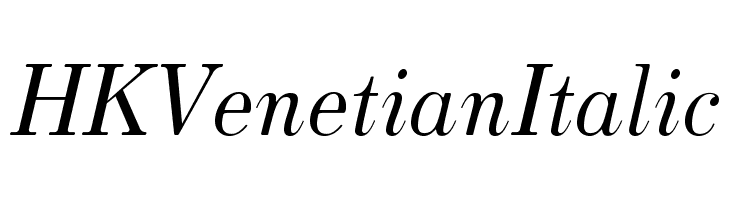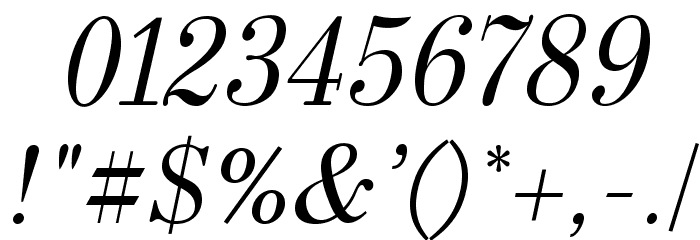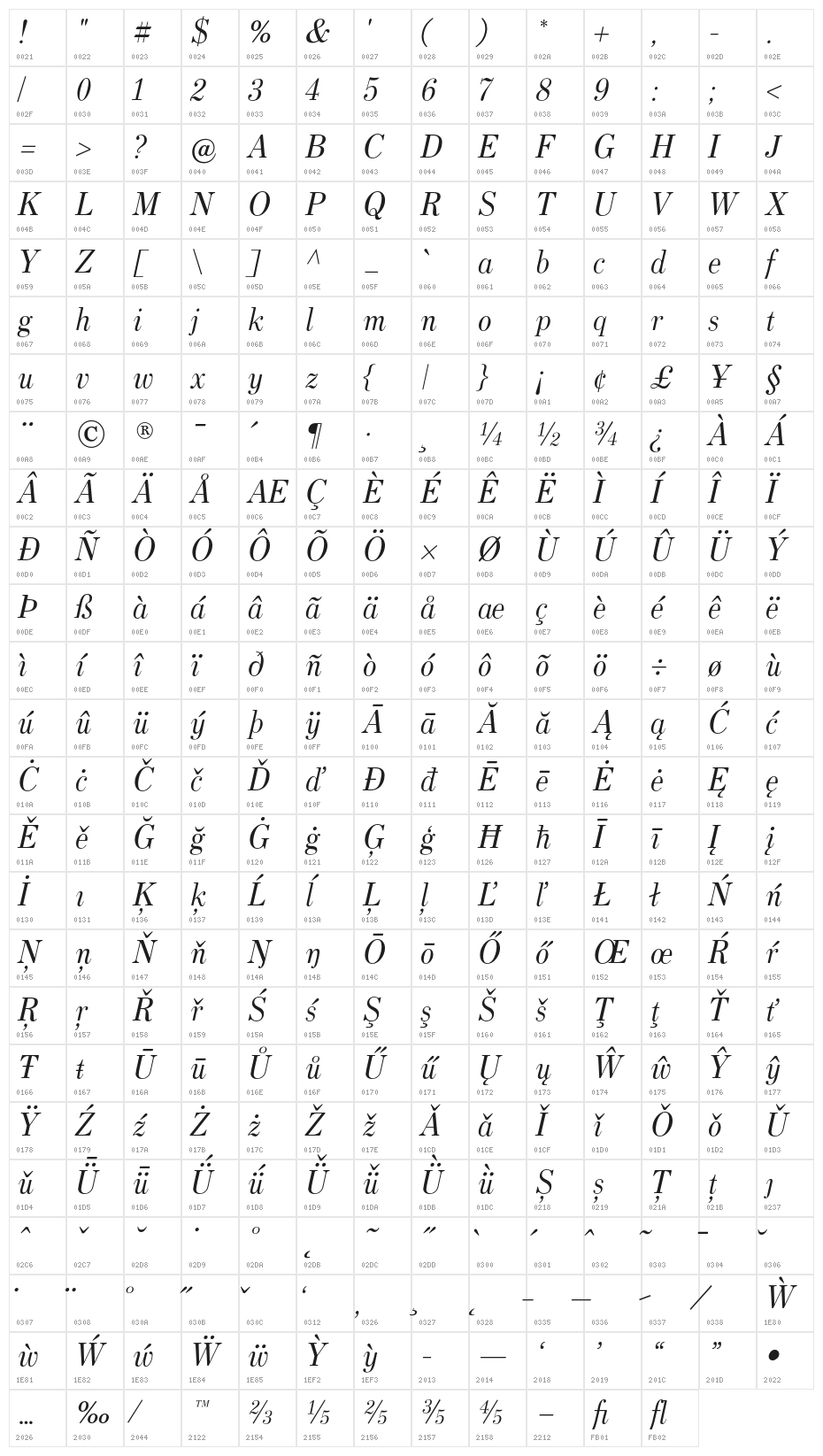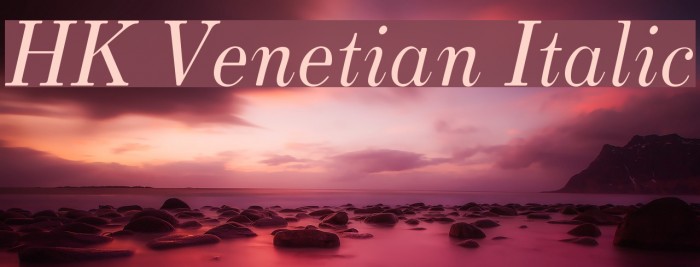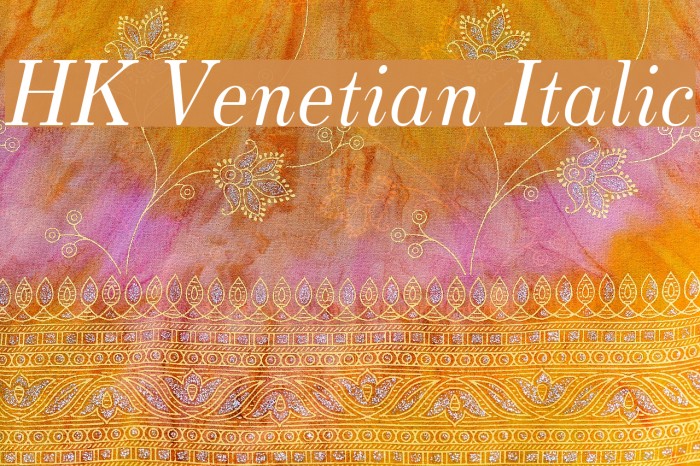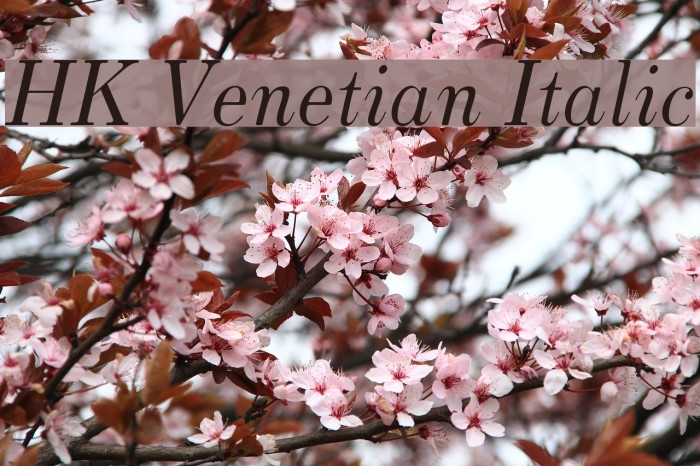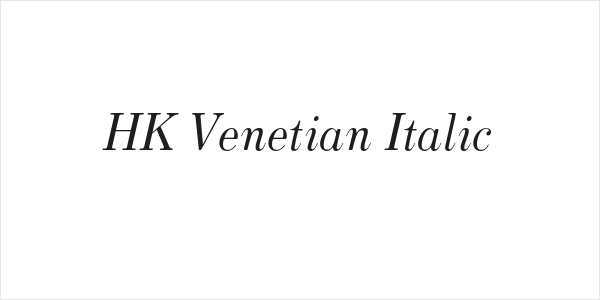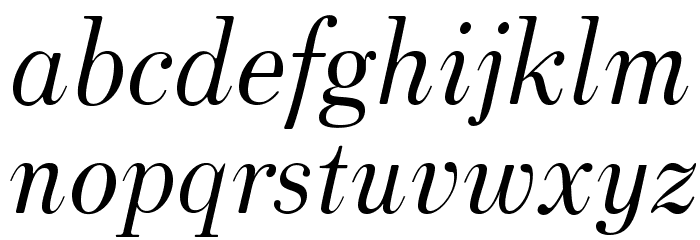
HK Venetian Italic Font
HK Venetian Italic Description
This elegant typeface features a classic italic style with a refined and sophisticated appearance. The letters are gracefully slanted, providing a sense of movement and fluidity. The strokes are moderately contrasted, with thin lines and slightly thicker downstrokes, adding to its readability and charm. The serifs are delicately crafted, enhancing the traditional aesthetic while maintaining a modern touch. The overall design is balanced, with well-proportioned characters that offer a timeless appeal. This font is suitable for projects that require a touch of elegance and tradition.